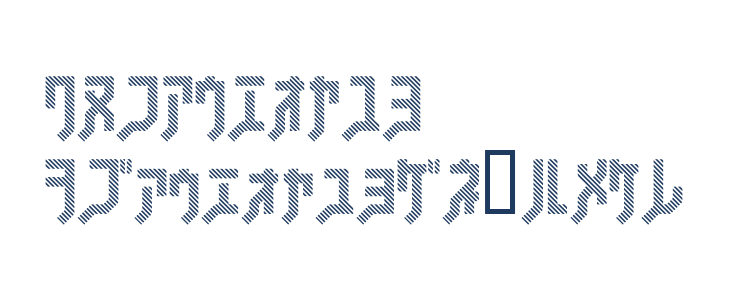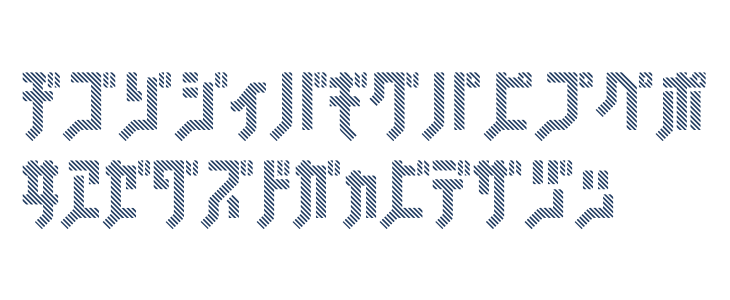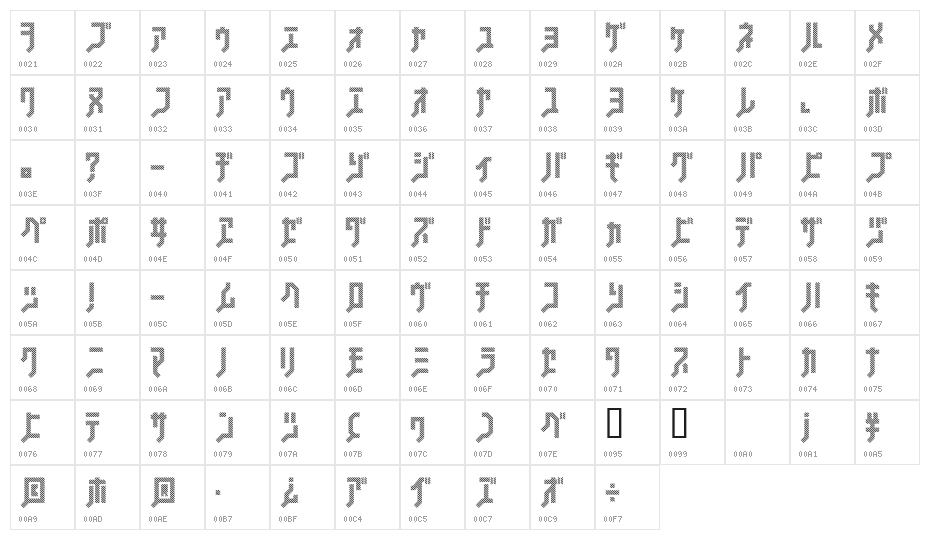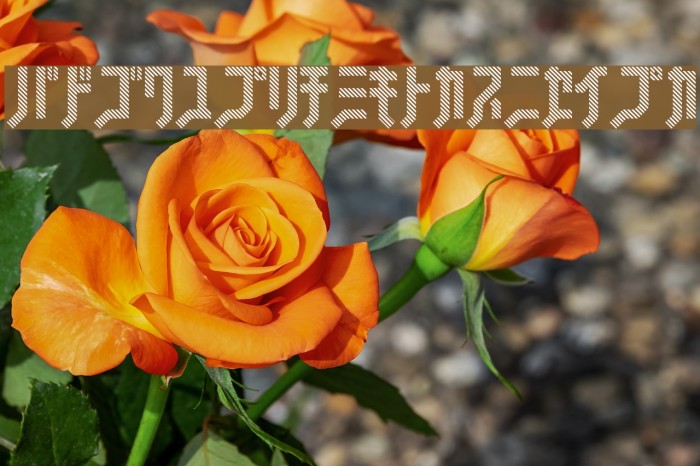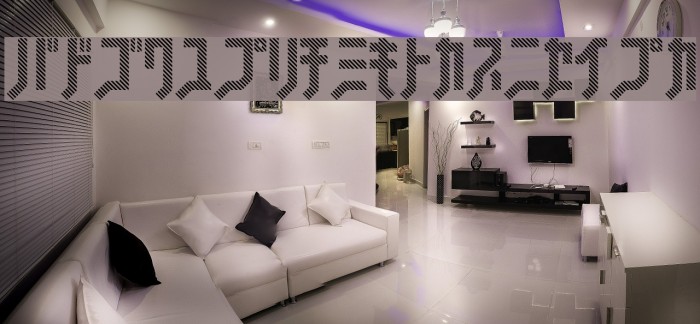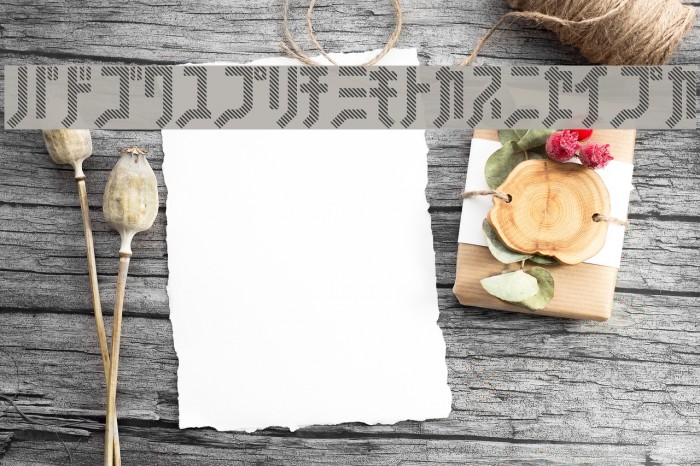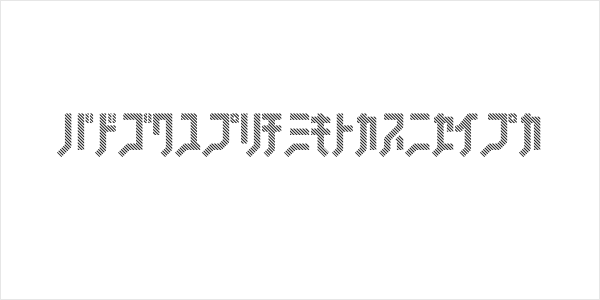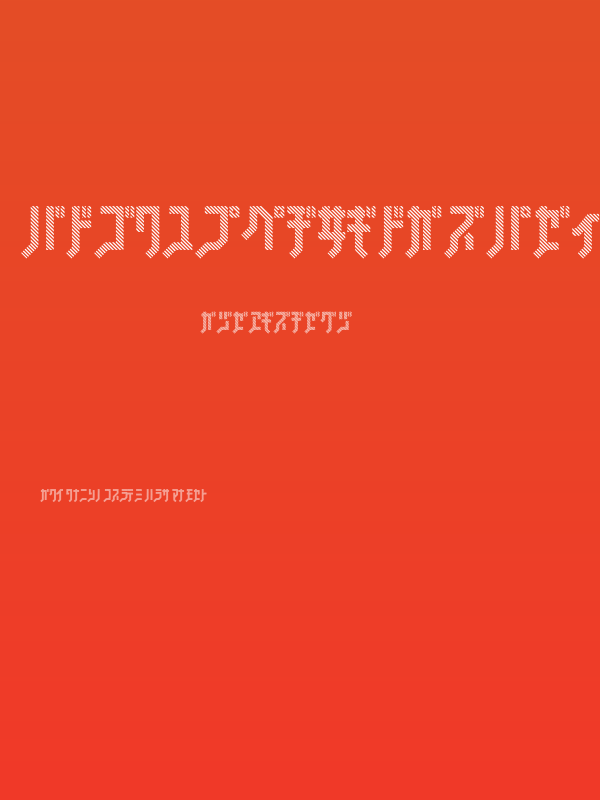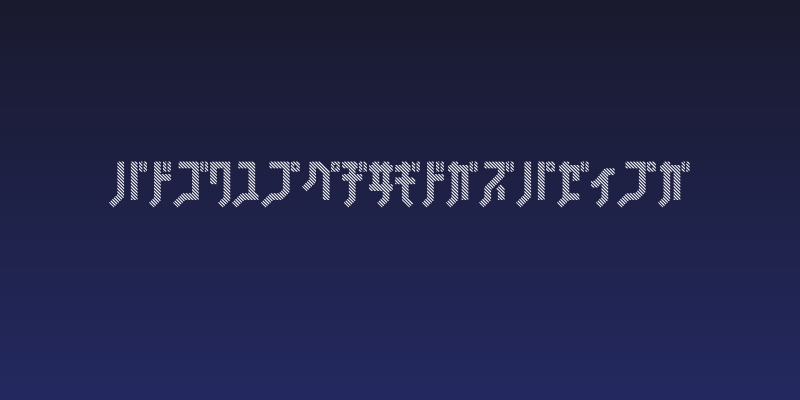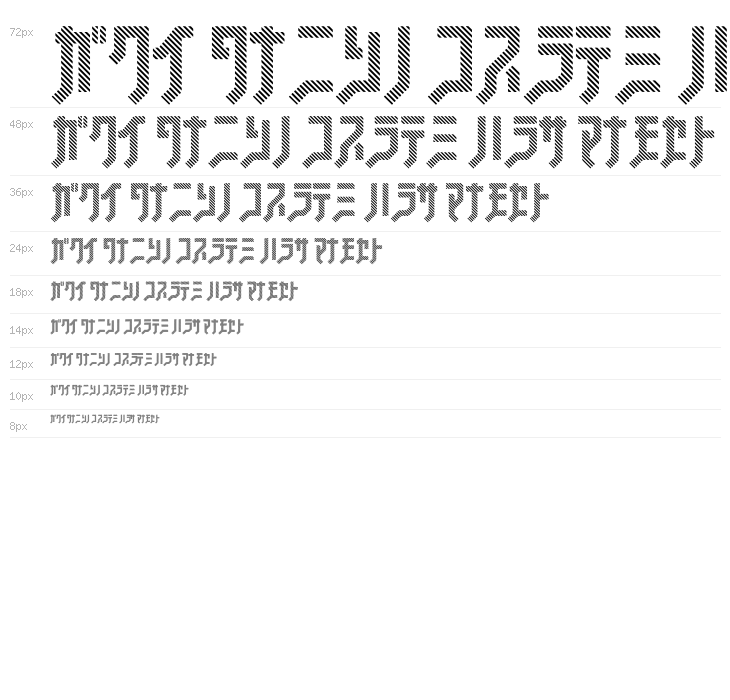
FSB08KlangstripeKt Font
FSB08KlangstripeKt Description
This font features a unique and striking design with diagonal striped patterns filling each character, creating a textured and dynamic appearance. The characters are bold and angular, giving a sense of movement and energy. The font's geometric style is consistent across all letters and numbers, providing a cohesive look. The use of diagonal lines adds a modern and edgy feel, making it stand out in any design. The characters are evenly spaced, ensuring readability despite the intricate pattern. This font is ideal for projects that require a bold statement and a contemporary aesthetic.
| Proposed Projects | Ideal for branding, posters, album covers, and any design needing a bold, modern statement. |